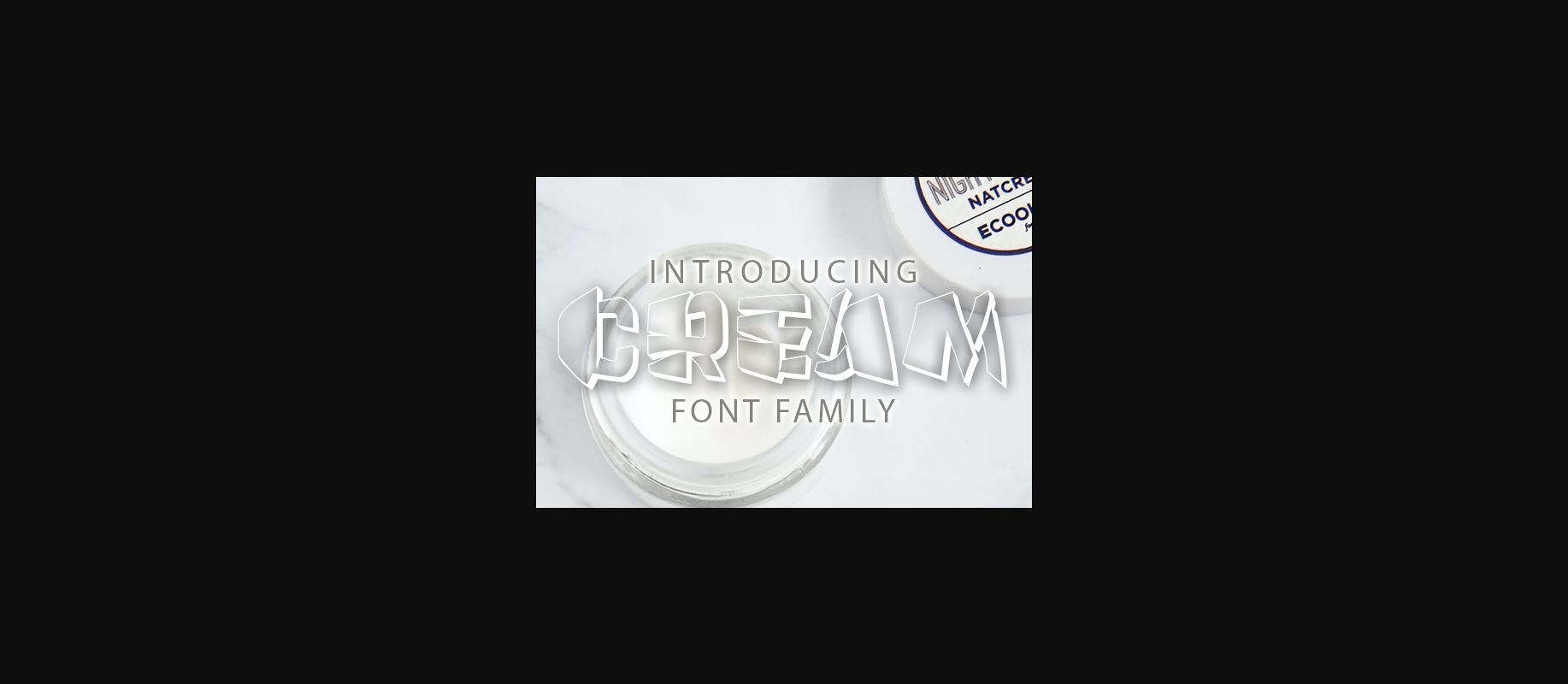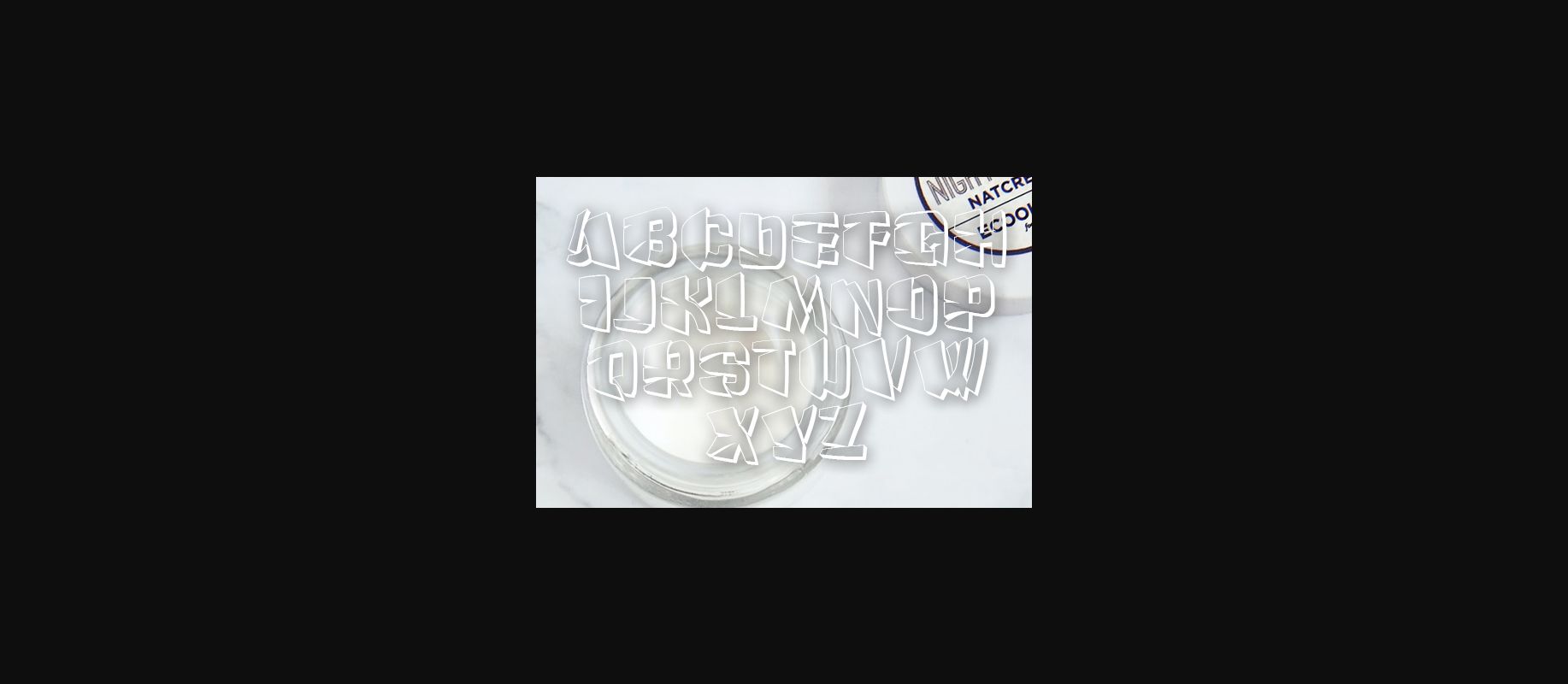
Cream Font
About Cream Font
Cream is an awesome decorative font family that will take your designs to the highest levels! It looks amazing on product packaging, branding, children’s books, magazines, or any other project that needs playful and bold typography.